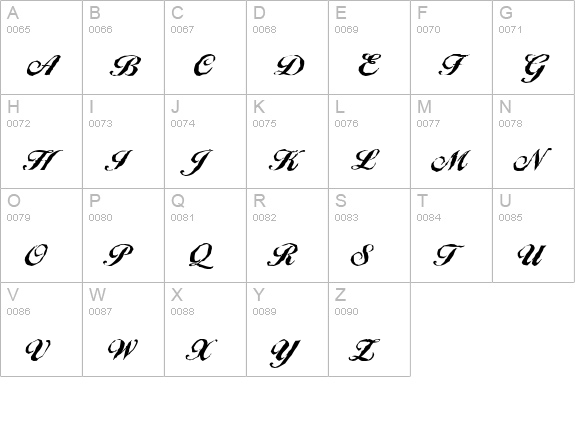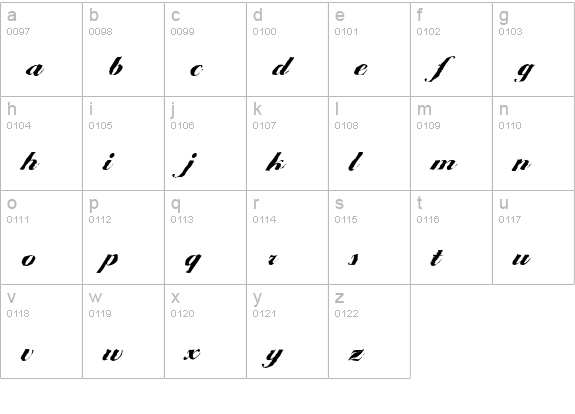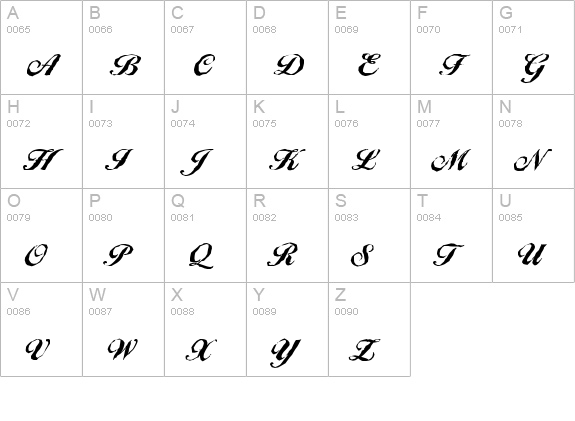
BallantinesAntique-Heavy-Regular is a heavy, high-impact variant in the BallantinesAntique typeface family \xE2\x80\x94 well suited to high-impact headlines, posters, and display advertising.
BallantinesAntique-Heavy-Regular font is a timeless and elegant typeface that exudes a sense of vintage charm and sophistication. With its bold and distinctive letterforms, this font is perfect for creating eye-catching headlines, signage, and branding materials. The antique-inspired design of BallantinesAntique-Heavy-Regular font adds a touch of nostalgia and character to any project, making it a versatile choice for both print and digital applications. Its heavy weight and classic styling make it ideal for conveying a sense of tradition and authenticity. Best of all, BallantinesAntique-Heavy-Regular font is available for free download at FontsMarket.com. Whether you're a designer looking to add a touch of classic elegance to your work or a typographer seeking a new addition to your font library, this font is sure to impress with its timeless appeal and quality craftsmanship. Download it today and elevate your designs with the beauty of BallantinesAntique-Heavy-Regular font.